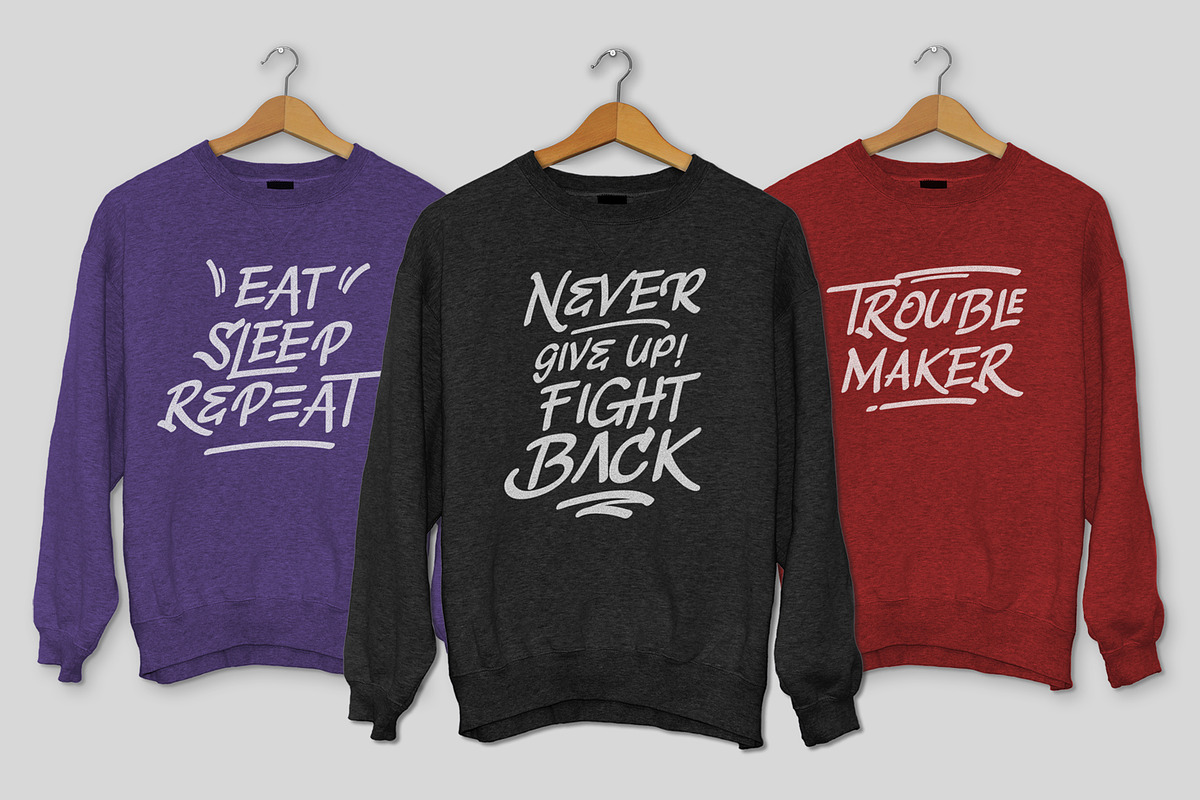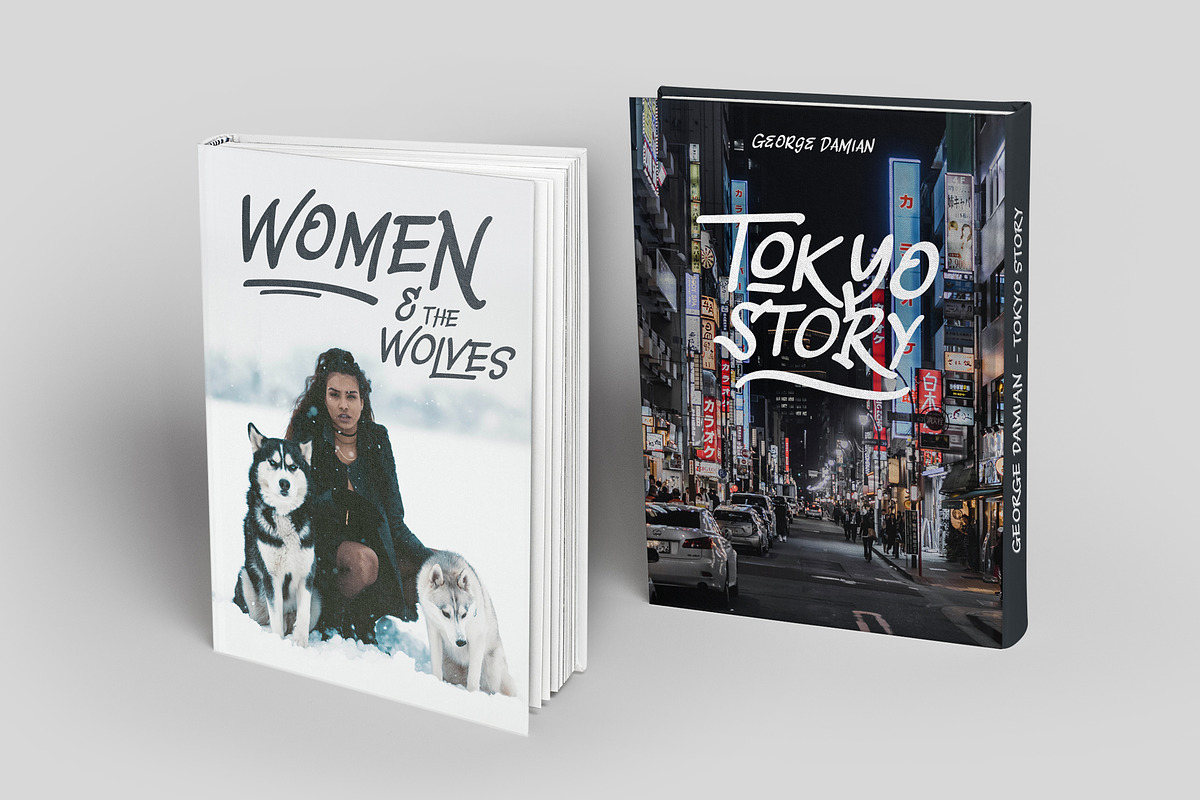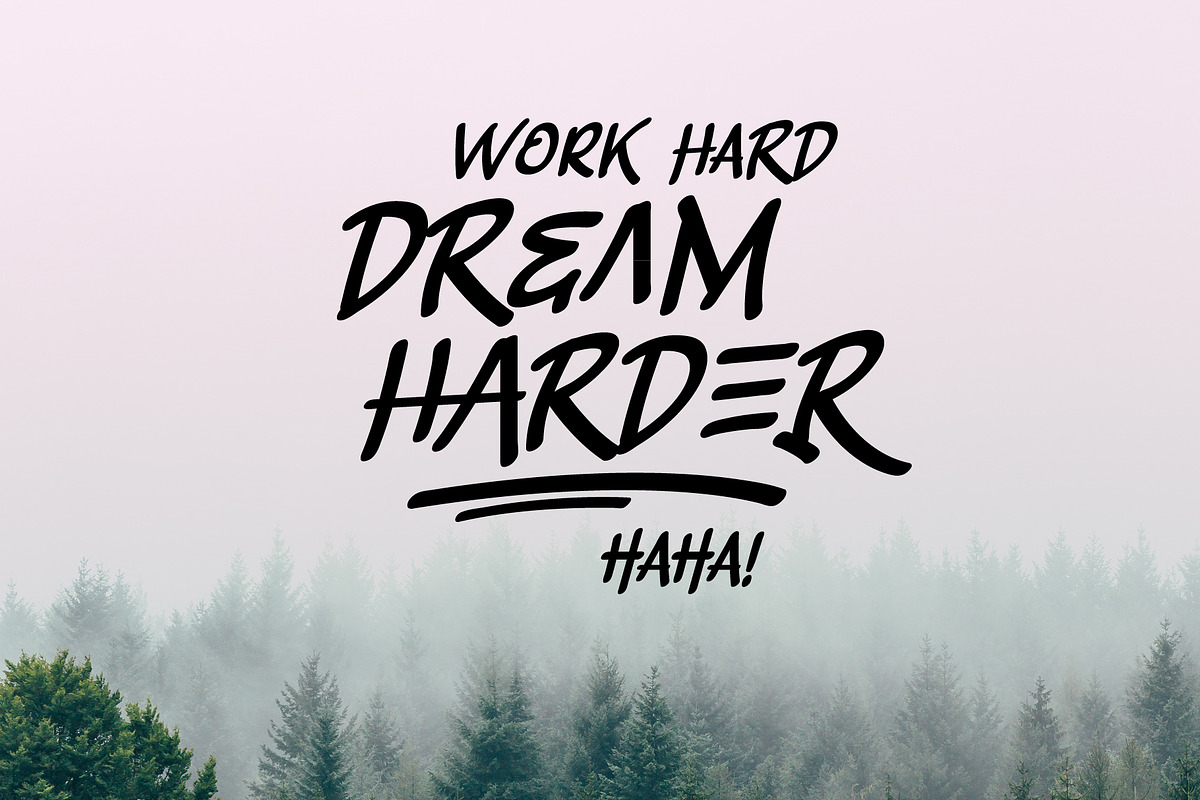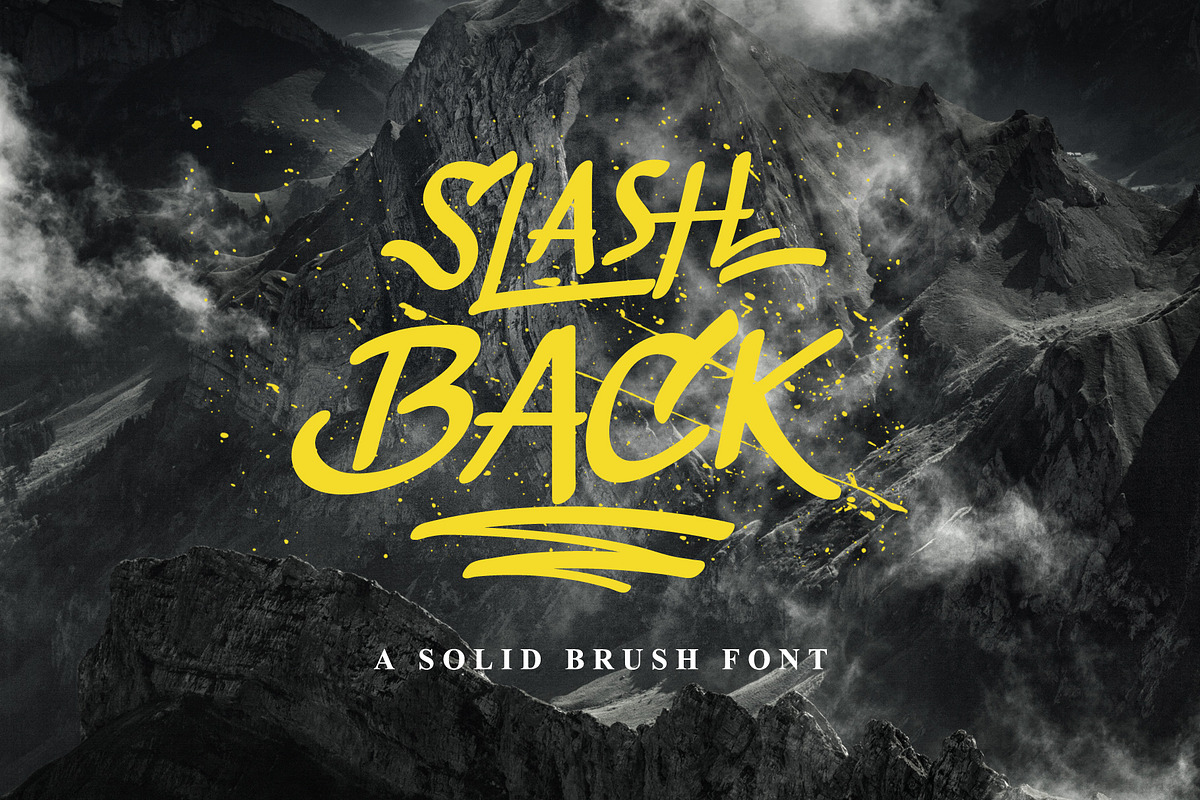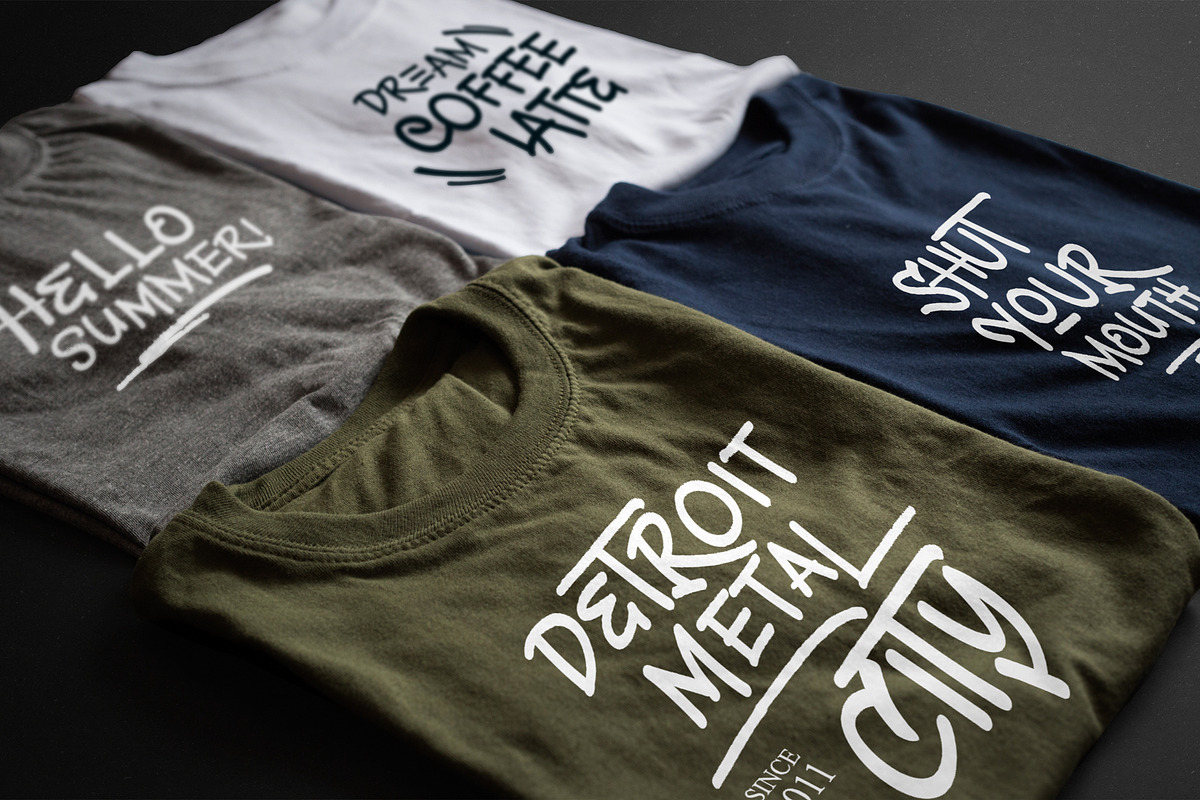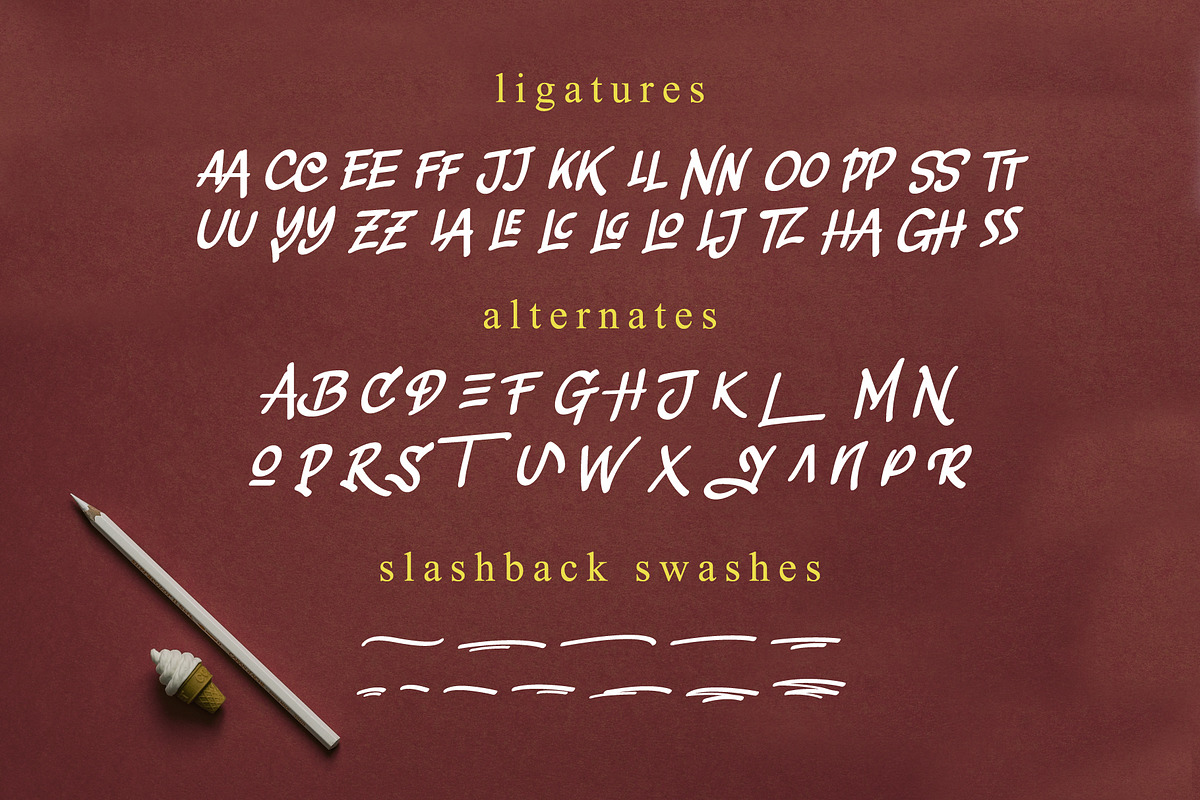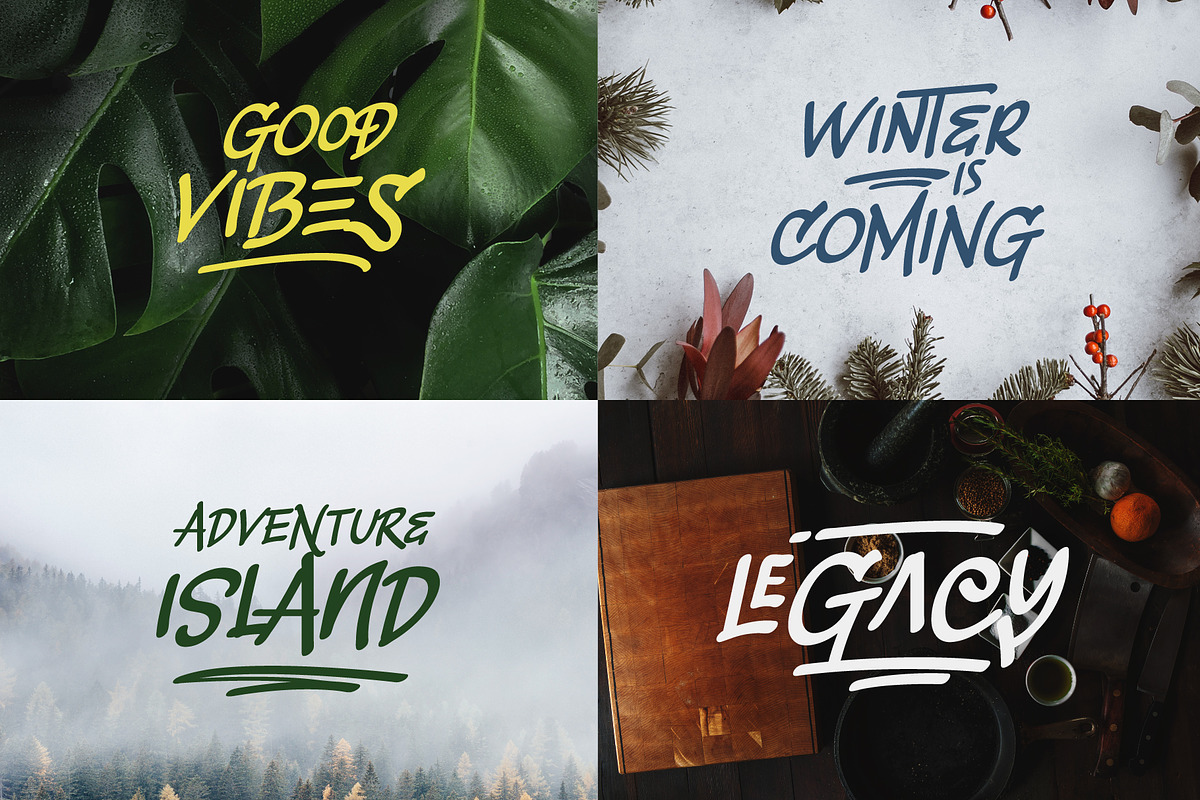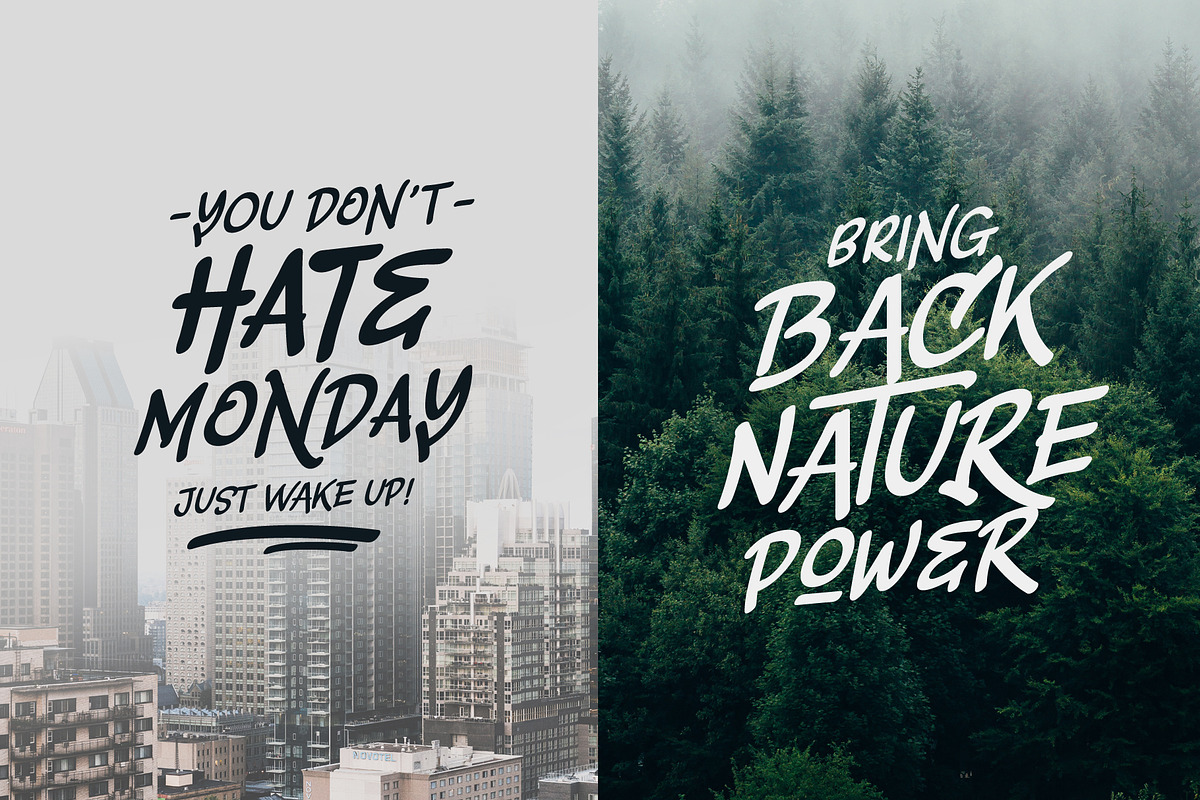
Slashback Typeface
Slashback is a solid brush font, made with simple brush and following the line direction become letters. This font is comibined from hand-lettering and comic taste that allow you to create a clean quotes, label, display, t-shirt, bags, pouch, header or body text. Slashback is completed with swashes version in separated version to maximize your style.
Lowercase (All-caps shaped)
- Slashback is also comes with ligatures and stylistic alternates to gives you choices letter combination.